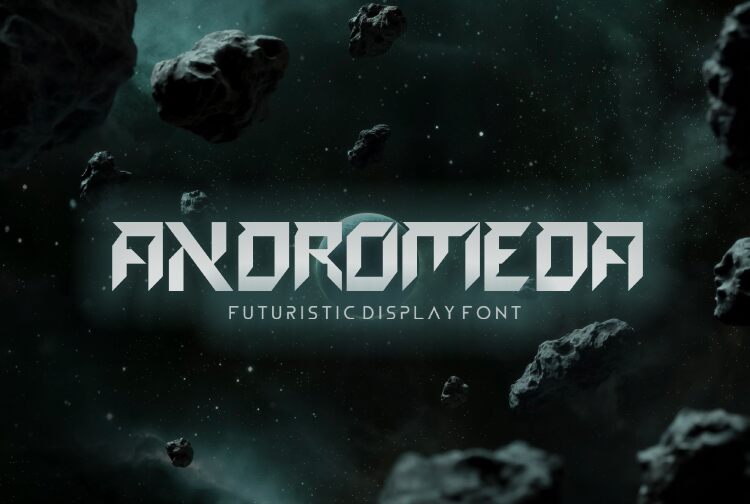
Andromeda
Andromeda, the futuristic display font created by MaknaStudio, is the perfect choice for projects that need to stand out. Its bold weight and expanded width make it ideal for anything from sci-fi movie posters to high-tech product branding. The sleek and modern style of Andromeda will give your designs an edge that traditional fonts can't match. Whether you're creating a website, logo, or advertising campaign, this display font will ensure that your message is heard loud and clear. So why settle for ordinary when you can make a statement with Andromeda?